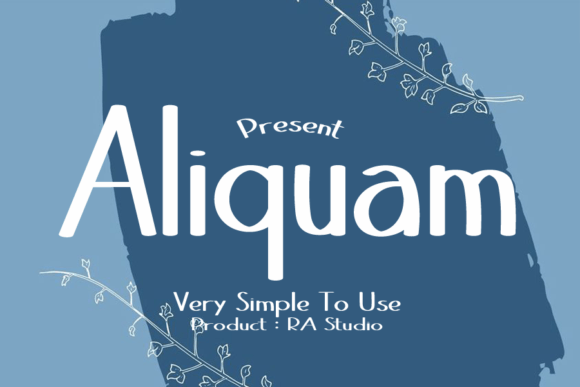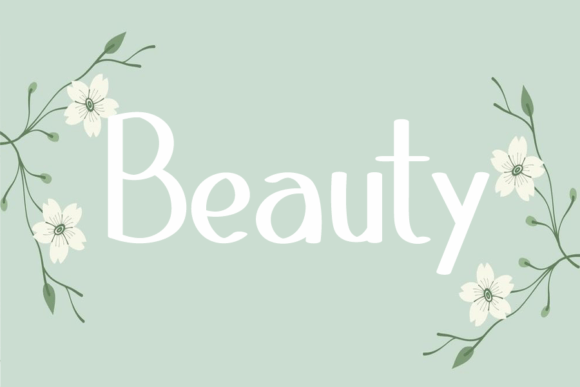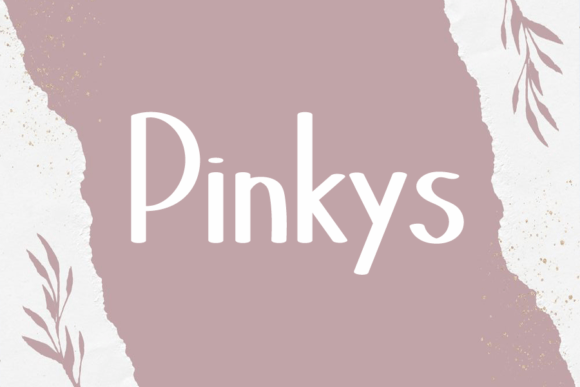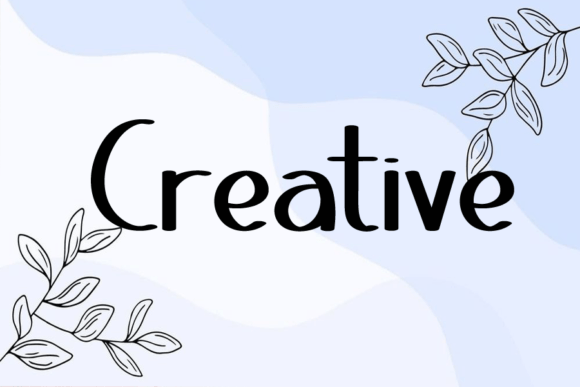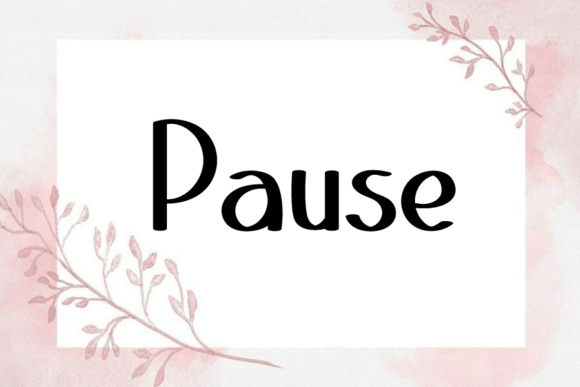
Aliquam Font
Aliquam Font: Classic Handwriting for Versatile Designs
“Aliquam” is a classic and straightforward handwritten font with a random, freestyle appearance. It’s perfect for various design applications, from logotypes to Instagram posts.
Key Features of Aliquam Font
• Classic Style: Aliquam brings a timeless feel to your designs.
• Versatile Use: Suitable for many projects, including branding and content creation.
• Authentic Look: Adds a personal touch to your typography.
Aliquam’s classic style is ideal for creating memorable logo designs and corporate identities that convey authenticity.
Digital Content Creation
Use Aliquam to design engaging content for Instagram, YouTube, and other digital platforms.
Print and Publishing
The font’s versatile nature makes it perfect for various print projects, from posters to books and magazines.
Why Choose Aliquam Font?
Aliquam offers more than just classic letters. Here’s why it stands out:
• Provides a timeless typographic foundation for designs
• Offers creative flexibility across various themes and industries
• Conveys a sense of authenticity and creativity
By using Aliquam, you open up new design possibilities. Its classic style works well in many contexts, from website headers to apparel designs. The font’s straightforward nature can inspire creative ideas and help you approach projects from a fresh perspective.
Aliquam in Modern Design Trends
Despite its classic roots, Aliquam fits well with modern design trends that favor authenticity and personal touch. Its handwritten style can help capture attention and increase engagement, making it a valuable asset for designers working on contemporary projects.
If you’re looking for a font that’s both classic and versatile, Aliquam is an excellent choice. It’s perfect for adding an authentic touch to your work, especially for projects that need a timeless yet creative feel.
Explore how Aliquam can transform your designs. From corporate identities to creative content, this font brings a classic and freestyle quality to your creations.